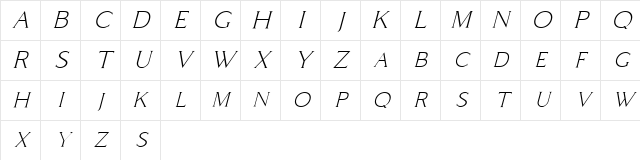
Coldiac Free Italic
Foundry: Craft Supply Co
Design Context for Coldiac Free
Coldiac Free is a composed and adaptable typeface that performs quietly and consistently across a wide range of design contexts. The slanted form adds forward momentum and visual energy.
Pro Tip: Use Coldiac Free for emphasis, pull quotes, and subheadings where its slanted energy can add rhythm to the layout.